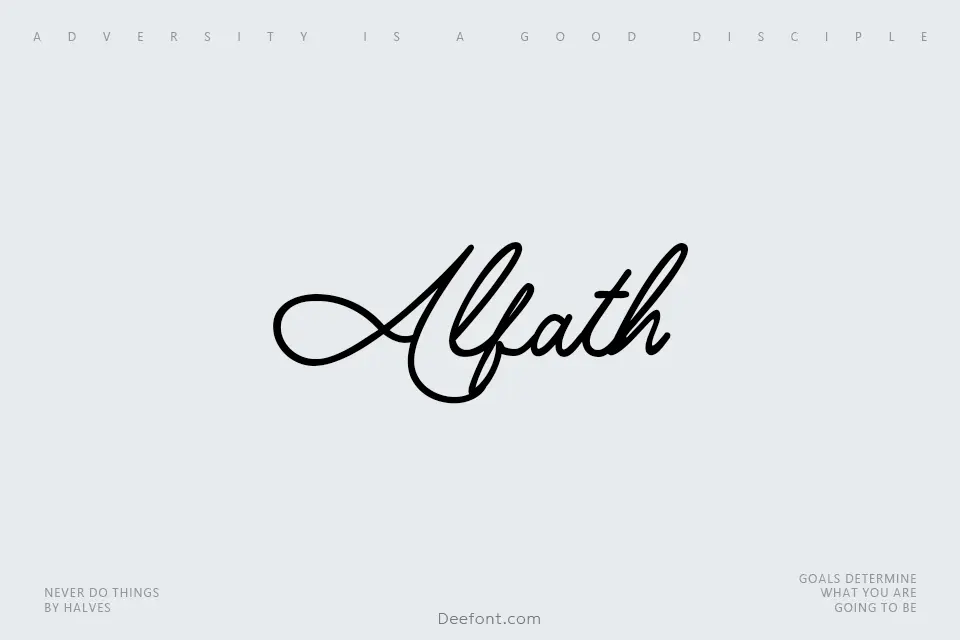
Alfath Font
Alfath is a beautifully crafted monoline script font featuring clean, continuous strokes that create an elegant and contemporary aesthetic. This handwritten-style typeface showcases refined letterforms ideal for logotypes, branding applications, and creative watermarks. With its smooth, single-line character structure, Alfath delivers sophisticated visual appeal suitable for wedding invitations, high-end product packaging, and premium design projects. The font’s balanced proportions and graceful curves make it particularly effective for headline typography and luxury brand identities.